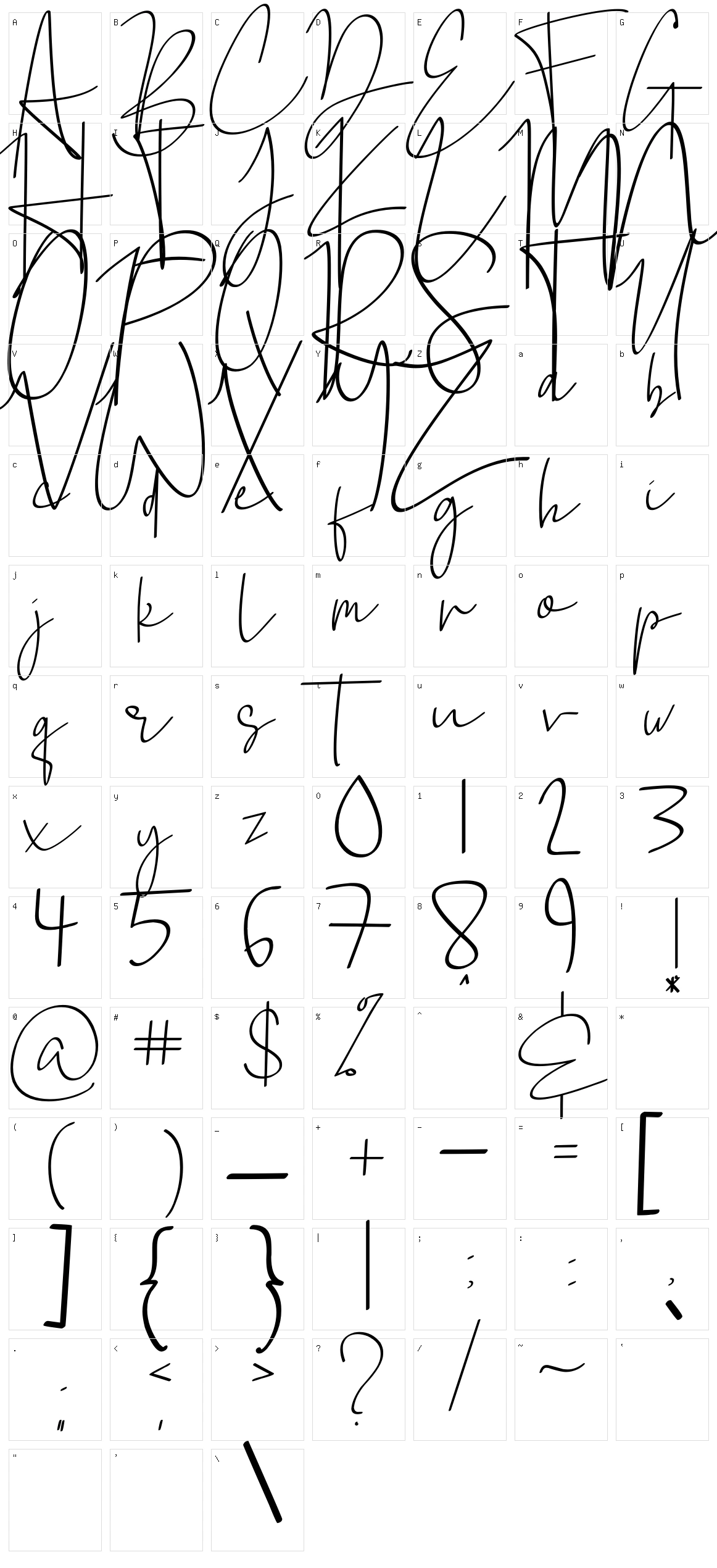
The free font La Lune is carefully designed by Fikryal studio, showcasing a thoughtful balance of creativity and usability and falls under the Script font style. When you download the ZIP file, it contains only 81.43 KB of font files, making it lightweight and quick to download. Please review the license details below to understand permitted usage and distribution rights. If license information is not available, we recommend using this font for personal projects only or contacting the author directly for commercial usage permissions.